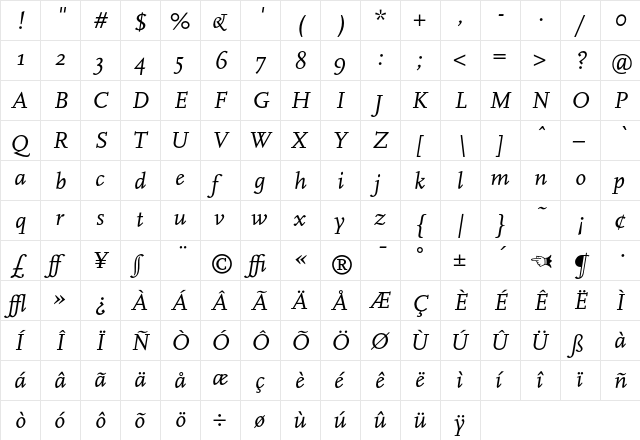
Cscala Italic
Design Context for Cscala Typeface
Cscala is a composed and adaptable typeface that performs quietly and consistently across a wide range of design contexts. Its italic angle brings a sense of urgency and motion to the letterforms.
Pro Tip: Use Cscala for emphasis, pull quotes, and subheadings where its slanted energy can add rhythm to the layout.